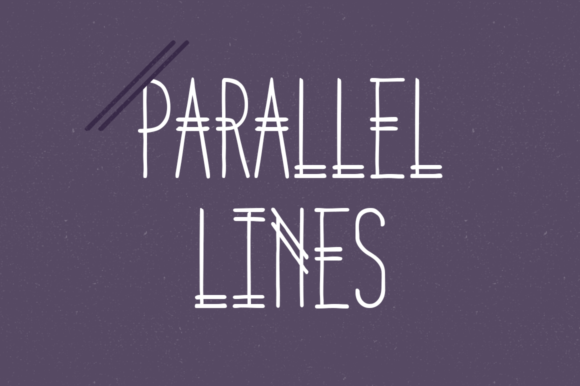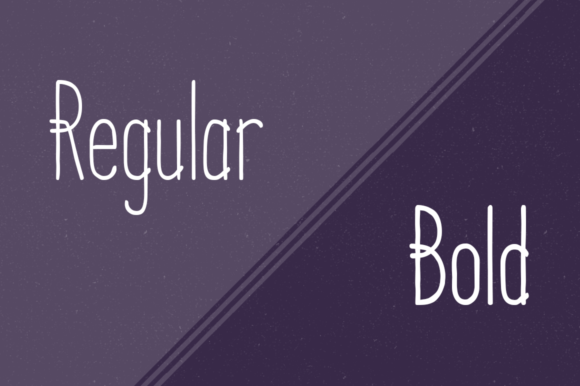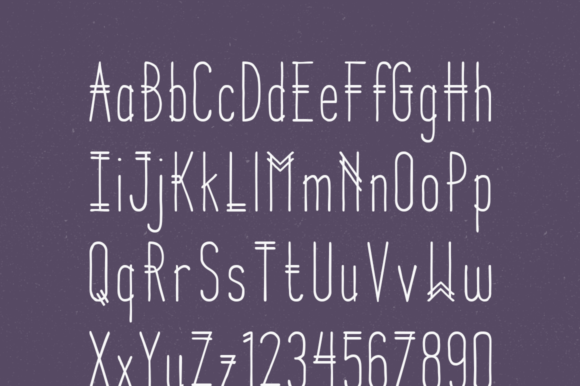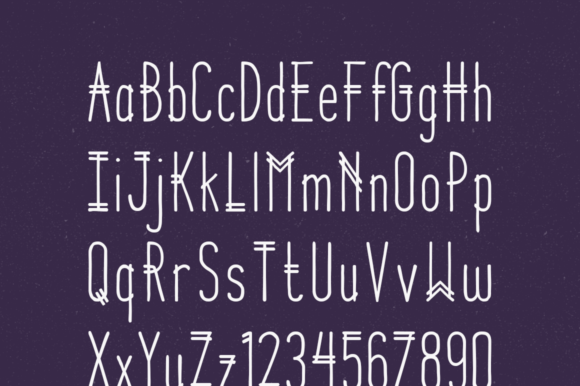
Parallel Lines Font
About Parallel Lines Font
The Parallel Lines is a skinny, handwritten font with decorative double lines that make it for display sizes. The download includes a bold version in case the original is a little too thin.